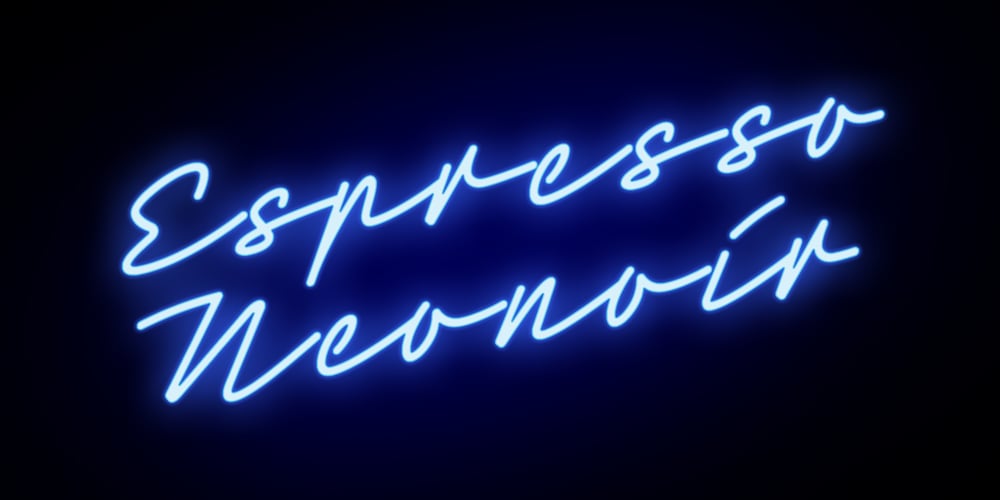
Neonoir Font Family was designed by Roland Hörmann and published by phospho. Neonoir contains 3 styles and family package options. Neonoir is an homage to neon lettering craftsmanship of the mid 20th century. The beautiful futuristic grace of wall-sized bent-glass hand-writing is distilled into a three-weight connected script that’s on the button for headlines, logotype and branding designs. Its Slim and Bold weights are formal monoline scripts, while the medium weight mimics the rough edges of ink on paper. Neonoir is available as an Open Type font that features alternate endings and lots of ligatures.